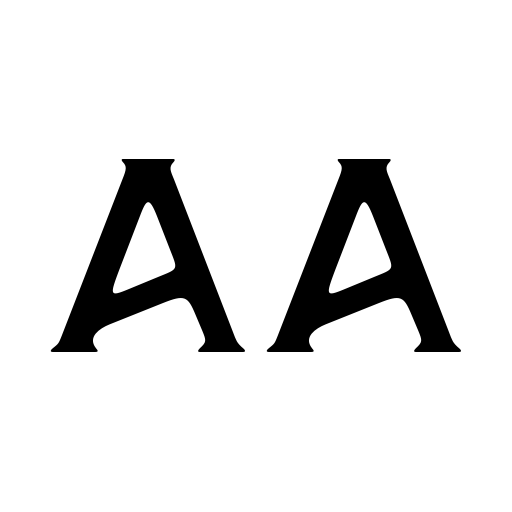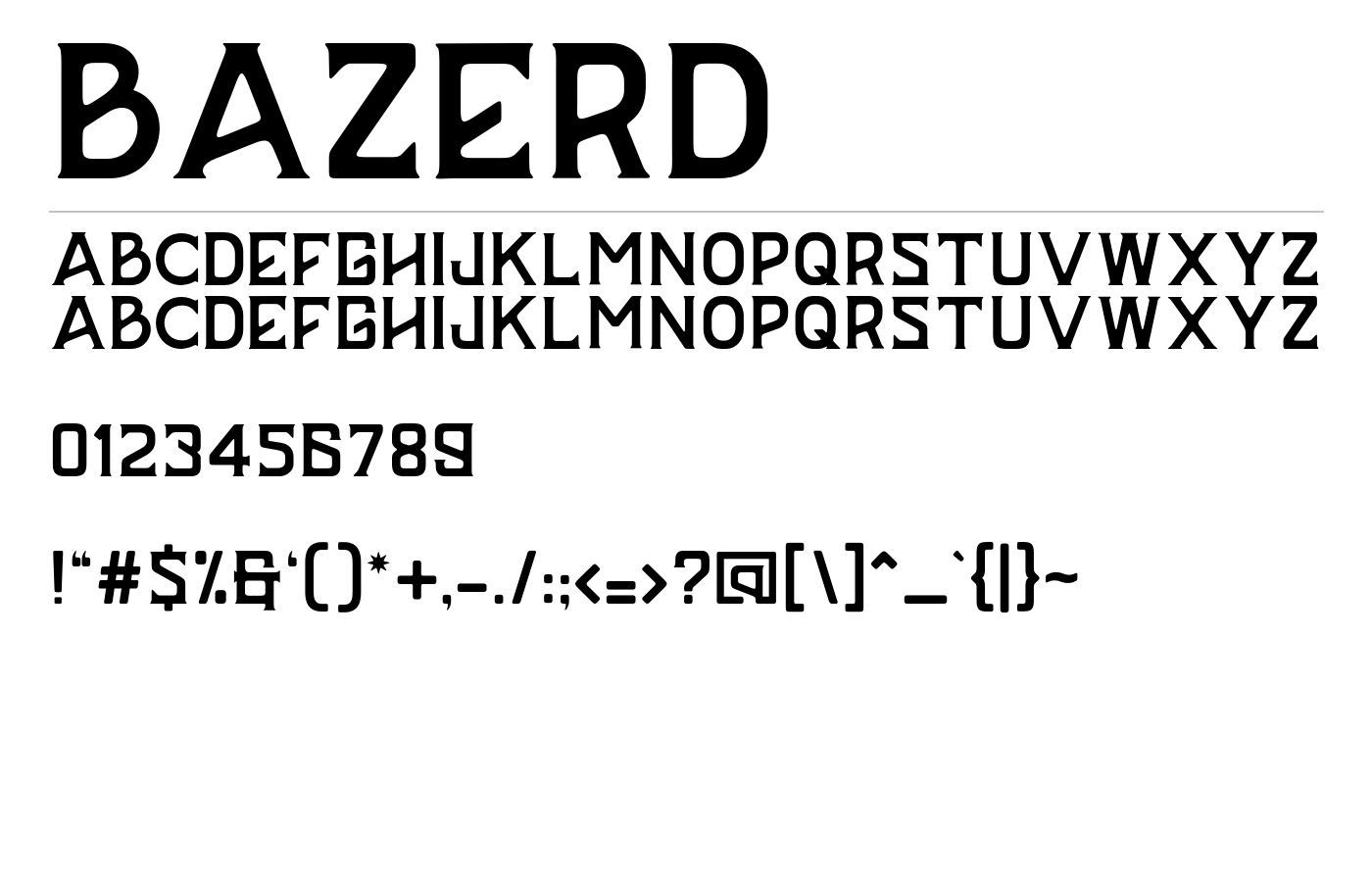
BAZERD is a distinctive serif typeface featuring strong, sharp serifs with a slightly condensed structure and high contrast between thick and thin strokes. Its geometric yet somewhat organic letterforms convey a bold, vintage feel with a touch of playfulness, making it ideal for eye-catching headlines, logos, and branding that aim to combine tradition with personality. This font works well in editorial design, packaging, and fashion contexts where a unique and memorable impression is desired.
BAZERD Font
About BAZERD Font